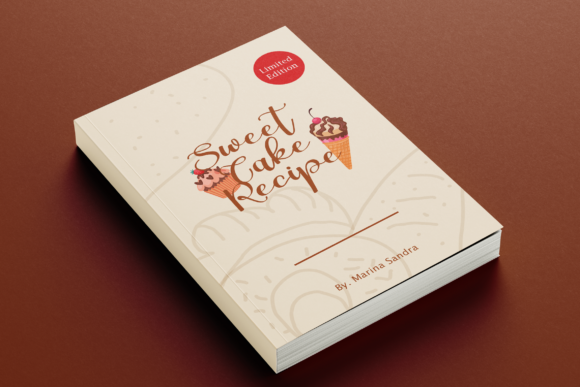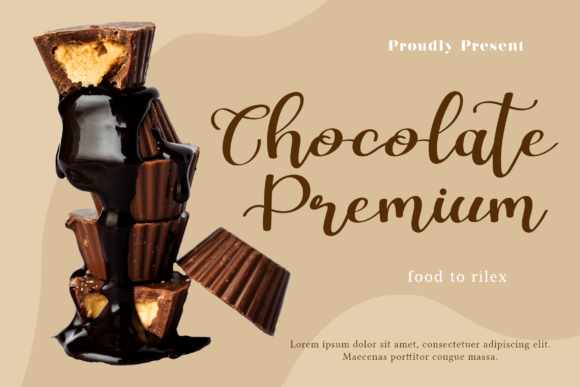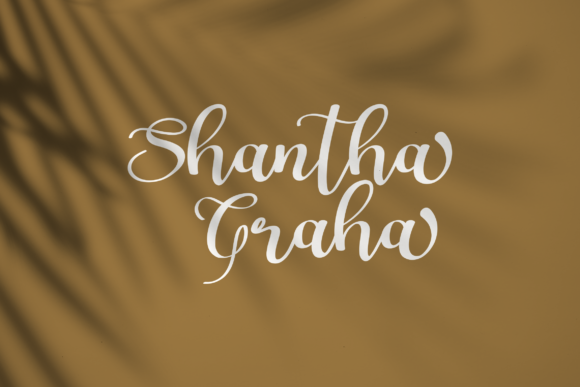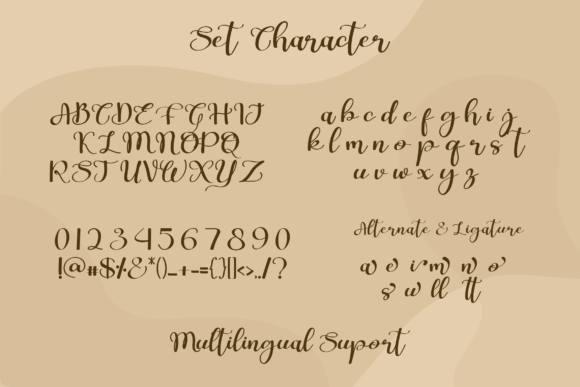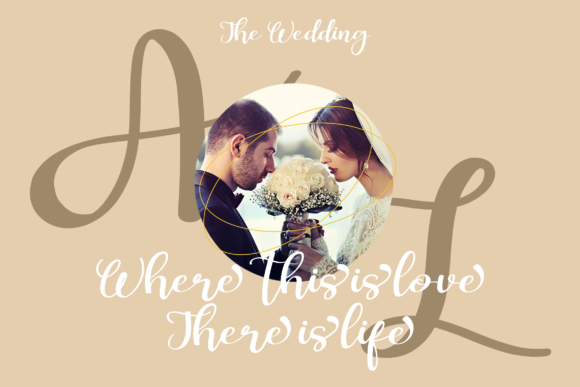
Introduction to Ornella Font
Ornella is a chic, trendy and so gorgeous looking script font.
It is defined by smooth curves and is perfect for fashion branding or editorial designs Add it confidently to your projects, and you will love the results.